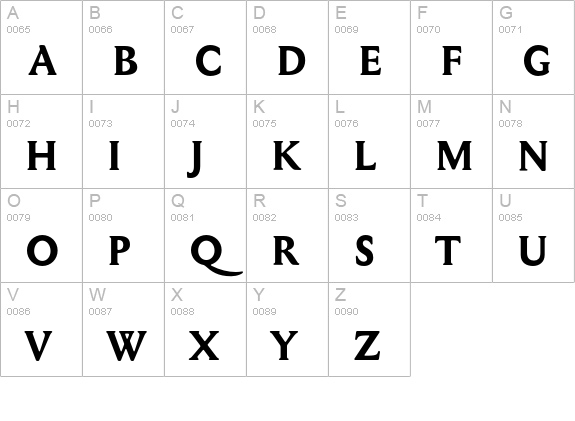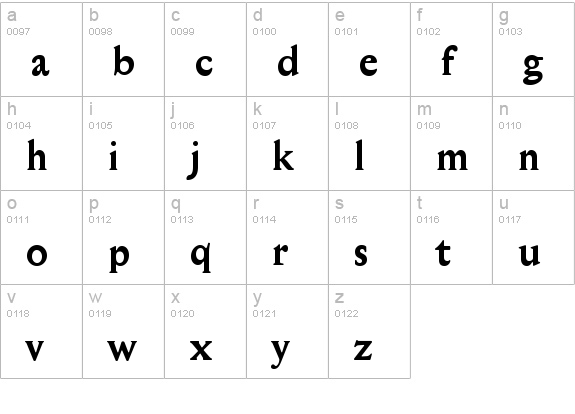
Mediaeval-Bold is a strong, high-contrast variant in the Mediaeval typeface family \xE2\x80\x94 well suited to headlines, attention-grabbing titles, and strong calls-to-action.
Mediaeval-Bold is a classic and elegant font that exudes a timeless charm and sophistication. With its bold and strong presence, this font is perfect for creating impactful headlines, titles, and logos. The intricate details and historical influences of Mediaeval-Bold make it a versatile choice for a wide range of design projects, from branding to editorial design. What makes Mediaeval-Bold even more appealing is that it is completely free to download at FontsMarket.com. This means that you can easily access and use this exquisite font without any cost, making it a valuable addition to your font collection. Don't miss out on the opportunity to enhance your designs with the beauty and grace of Mediaeval-Bold – download it for free today at FontsMarket.com!